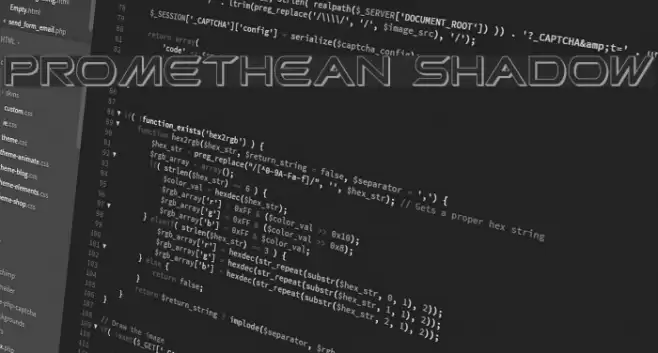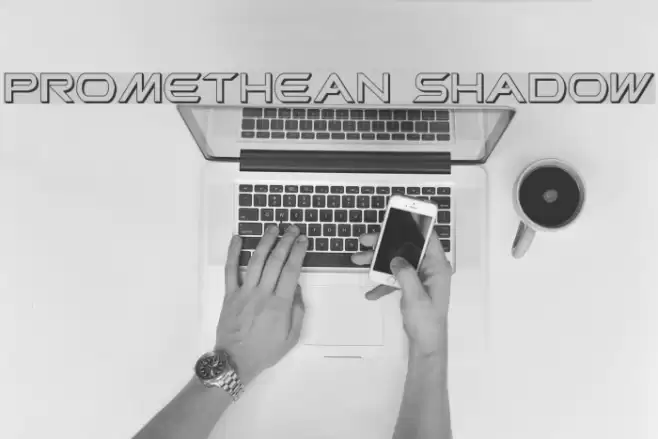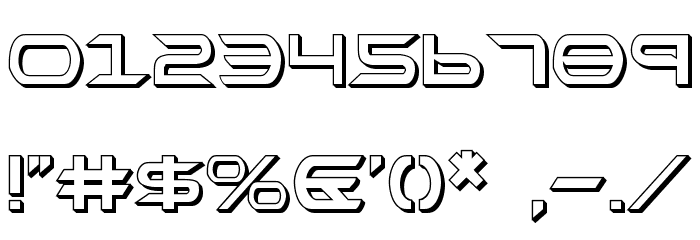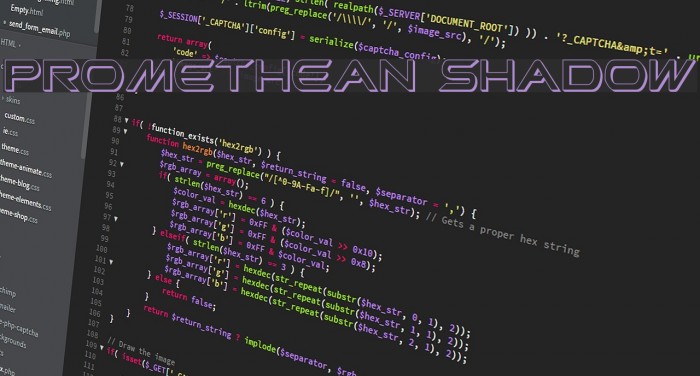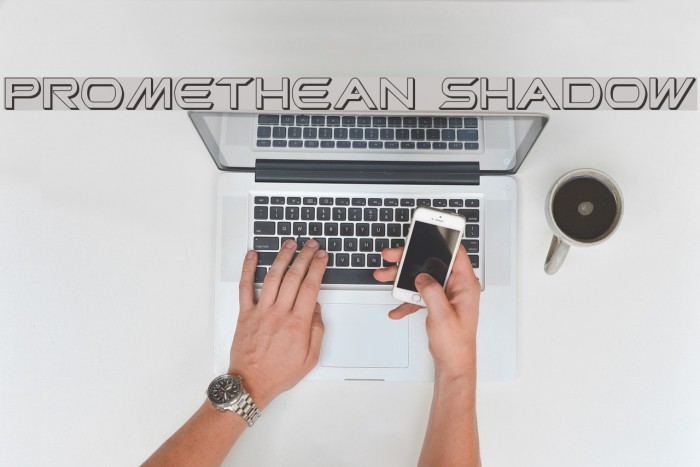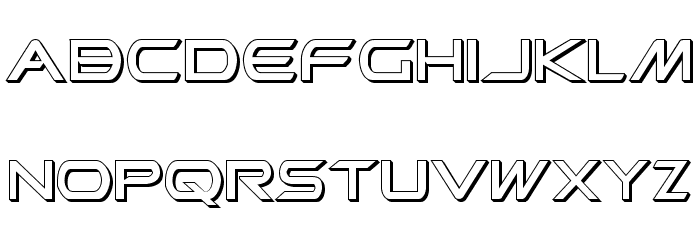
Promethean Shadow Font
Promethean Shadow Description
This font features a futuristic and geometric design with a shadow effect that gives it a three-dimensional appearance. The characters are outlined with a bold, consistent stroke, creating a strong visual impact. The angular and sharp edges of the letters contribute to its modern and tech-inspired aesthetic. The uppercase and lowercase letters maintain a uniform style, while the numerals and special characters complement the overall design. This font is ideal for projects that require a bold and innovative look, such as technology branding or sci-fi themed designs.
A futuristic, geometric font with a bold, shadowed outline from Sci-fi fonts.
- Proposed Projects: Ideal for technology branding, sci-fi themed designs, video game titles, and futuristic posters.